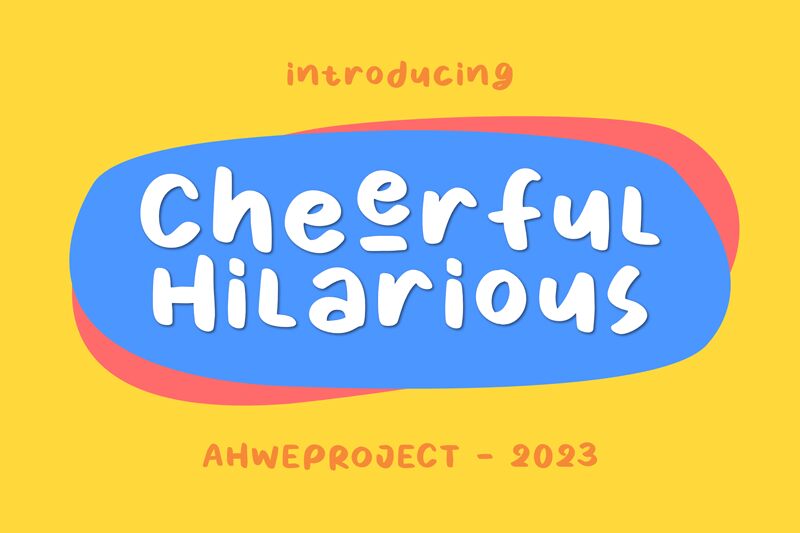
Cheerful Hilarious font is a stunning handwritten typeface designed with bold, expressive strokes. Created by Ahwe Project, this font embodies a vibrant and joyful aesthetic that's perfect for adding a touch of creativity to your projects. The intentionally dynamic line work brings a sense of motion and joy to the text, making it stand out with an incredible sense of personality.
Perfect for playful branding, funky greeting cards, lively posters or event flyers and large eye-catching headlines that demand attention. Also suitable for various print designs such as book covers or product packaging where you want to convey fun excitemento.
Cheerful Hilarious